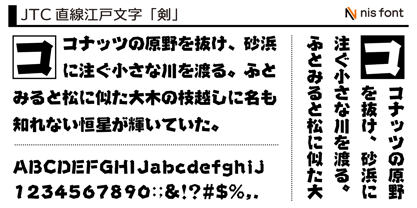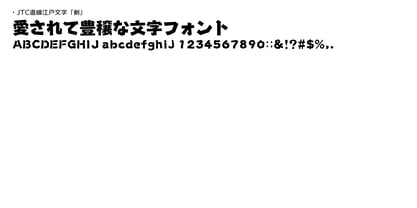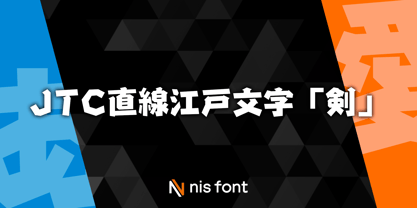
OT-NIS_ZEDO
by NIS Fonts
The OT-NIS_ZEDO Font Family was designed by and published by NIS Fonts. OT-NIS_ZEDO contains 1 styles. More about this family
The concept of the "OT-NIS_Z Series" has been applied to Edo-style lettering, expanding its use for POP designs and titles. Supports the JIS2004 character set.